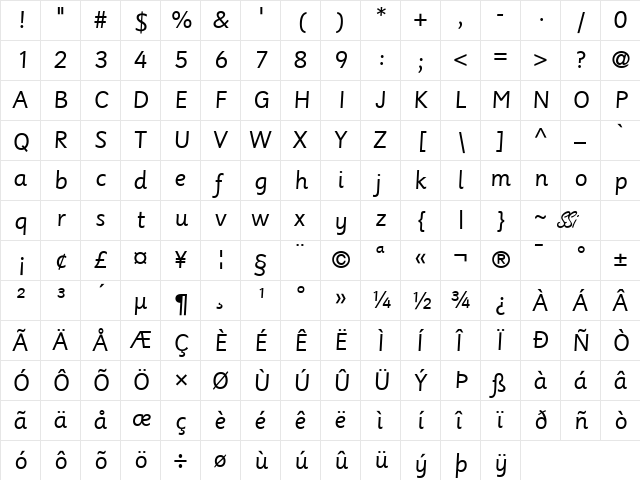
Upstart SSi Regular
Design Context for Upstart SSi Typeface
Upstart SSi takes a measured approach to typography — its balanced proportions and neutral character make it a reliable workhorse for both digital and print work.